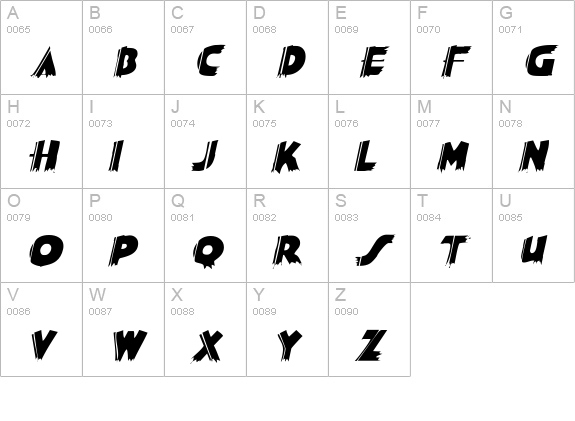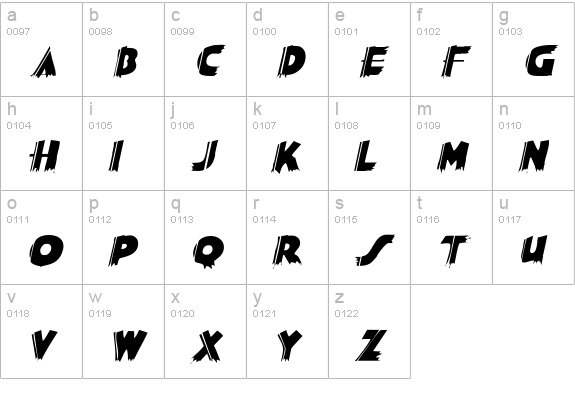
SashDisplayCaps Italic Font Details
SashDisplayCaps Italic is a distinctive, italic variant in the SashDisplayCaps typeface family \xE2\x80\x94 well suited to design and typography projects.
SashDisplayCaps Italic font is a stunning display typeface that exudes elegance and sophistication. With its sleek and stylish design, it is perfect for adding a touch of class to any project. The italic letterforms give a sense of movement and dynamism, making it ideal for headlines, titles, and any design that demands attention. This font is not only visually appealing but also highly versatile, making it suitable for a wide range of applications. Whether you're designing a logo, creating a poster, or crafting a captivating website, SashDisplayCaps Italic font will elevate your design to new heights. One of the best things about this font is that it is free! Yes, you heard it right. SashDisplayCaps Italic font is freely available to download at FontsMarket.com. This means that you can enjoy all the benefits of this exquisite typeface without spending a dime. It's a fantastic opportunity to enhance your design projects without breaking the bank. So why wait? Download SashDisplayCaps Italic font today and bring a touch of sophistication to your creations. With its elegant curves and captivating style, it will surely make a lasting impression on your audience. Don't miss out on this amazing free font – head over to FontsMarket.com now and start creating stunning designs with SashDisplayCaps Italic font.